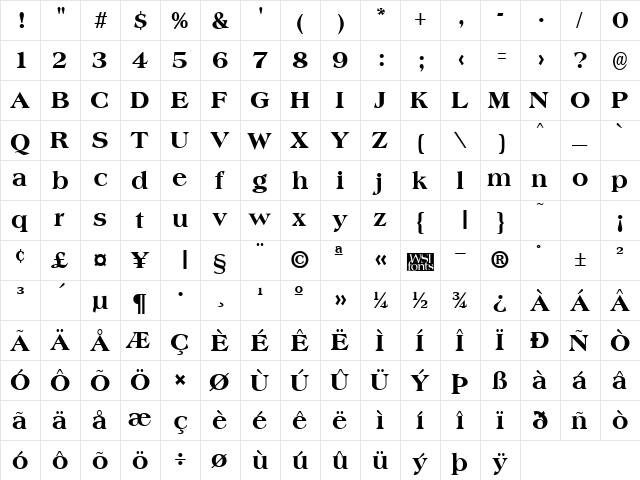
AmphionExtrabold Regular
Design Context for AmphionExtrabold Typeface
AmphionExtrabold is a composed and adaptable typeface that performs quietly and consistently across a wide range of design contexts. Its bold stroke weight gives it real presence on the page.